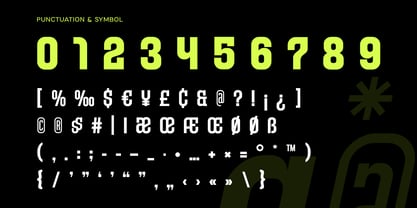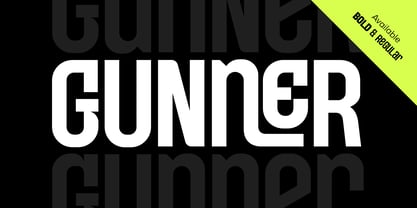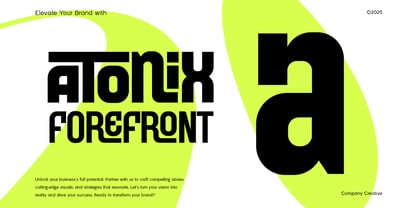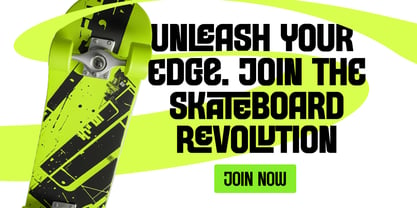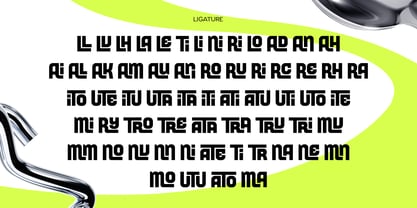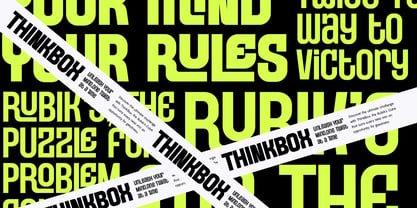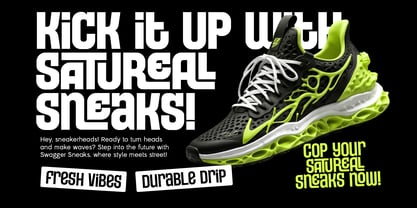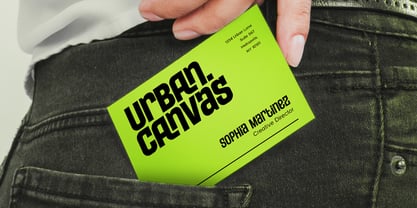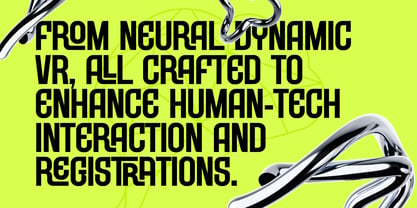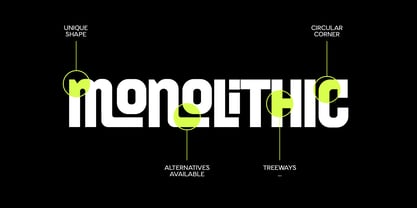
Gunner
La familia tipográfica Gunner fue diseñada por Zamroni Hamzah y publicada por Sensatype Studio. Gunner contiene 4 estilos y opciones de paquete familiar. Más información sobre esta familia
Gunner - Condensed Font
Gunner is a condensed font that brings a bold and modern feel to any design. Its sleek and compact form makes it perfect for projects that require strong visual impact without taking up too much space. Whether you're creating logos, headlines, or branding materials, Gunner delivers a powerful and confident look.
This font stands out for its sharp lines and tight letter spacing, making it highly effective for both print and digital formats. It’s a versatile typeface that works well in a variety of applications, from editorial layouts to promotional materials, giving a sleek and minimalistic feel to your designs.
With a strong, condensed style, Gunner is designed for precision and clarity, ensuring that your message is communicated boldly and effectively. Its OpenType features and alternative characters provide flexibility, allowing for customization and unique typographic results.
Gunner Condensed Font Features:
• Bold Condensed Ligature Characters Ready
• Available with Regular & Bold Characters
• Punctuation, Number, and Symbol
• Uppercase and Lowercase
• Multilingual Support
• Opentype Features